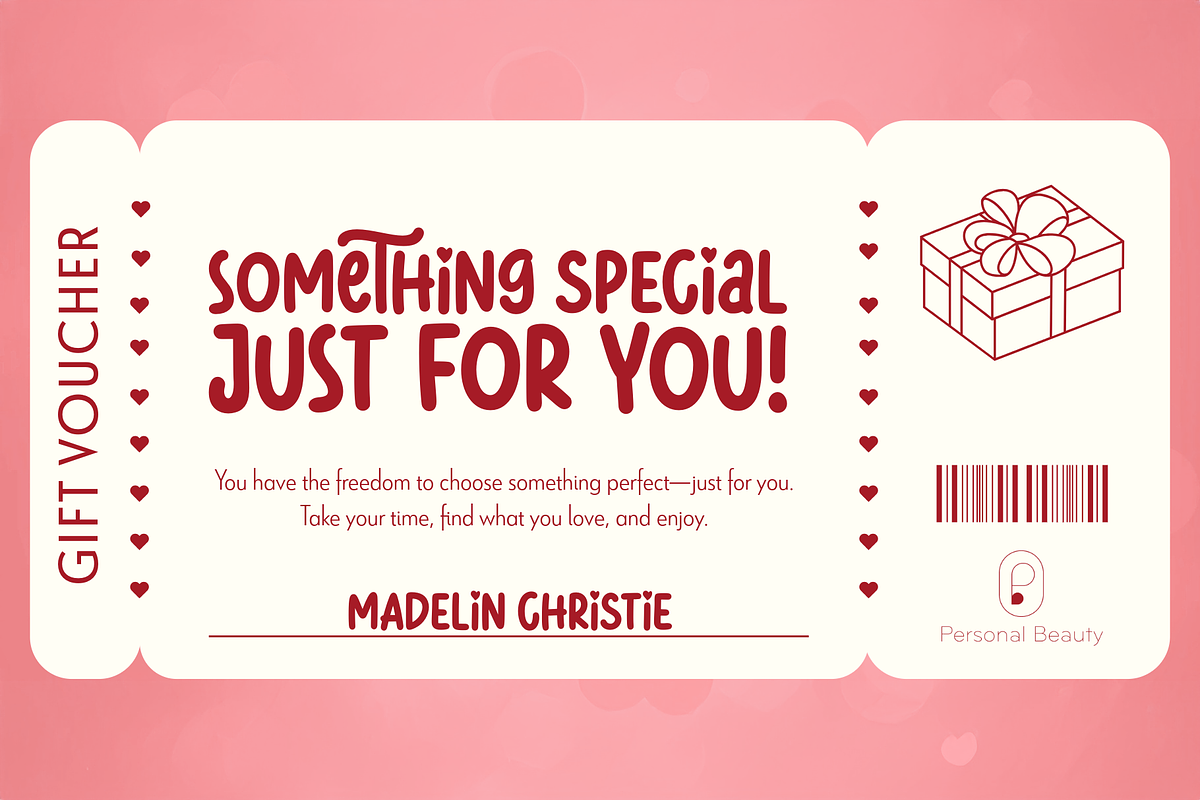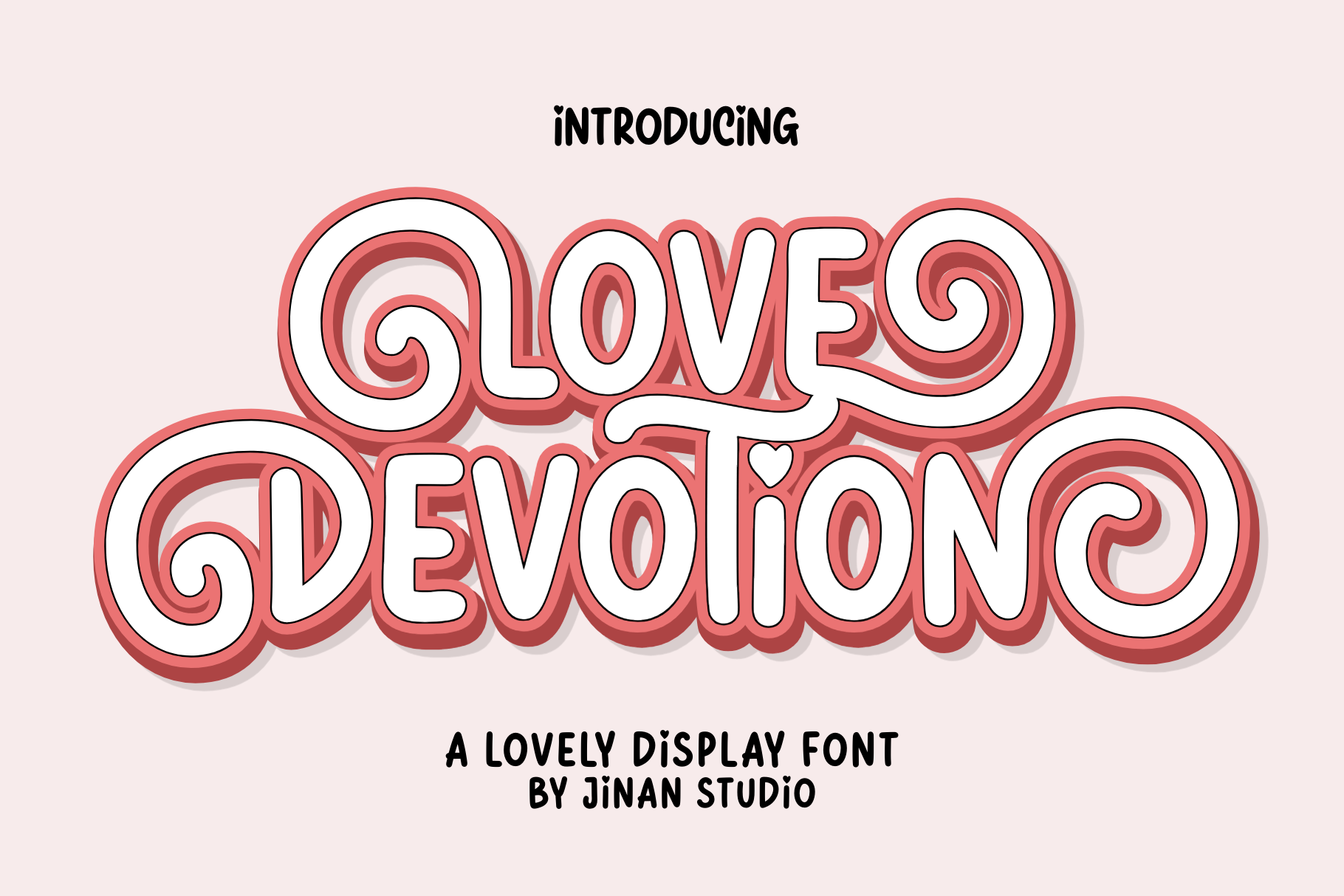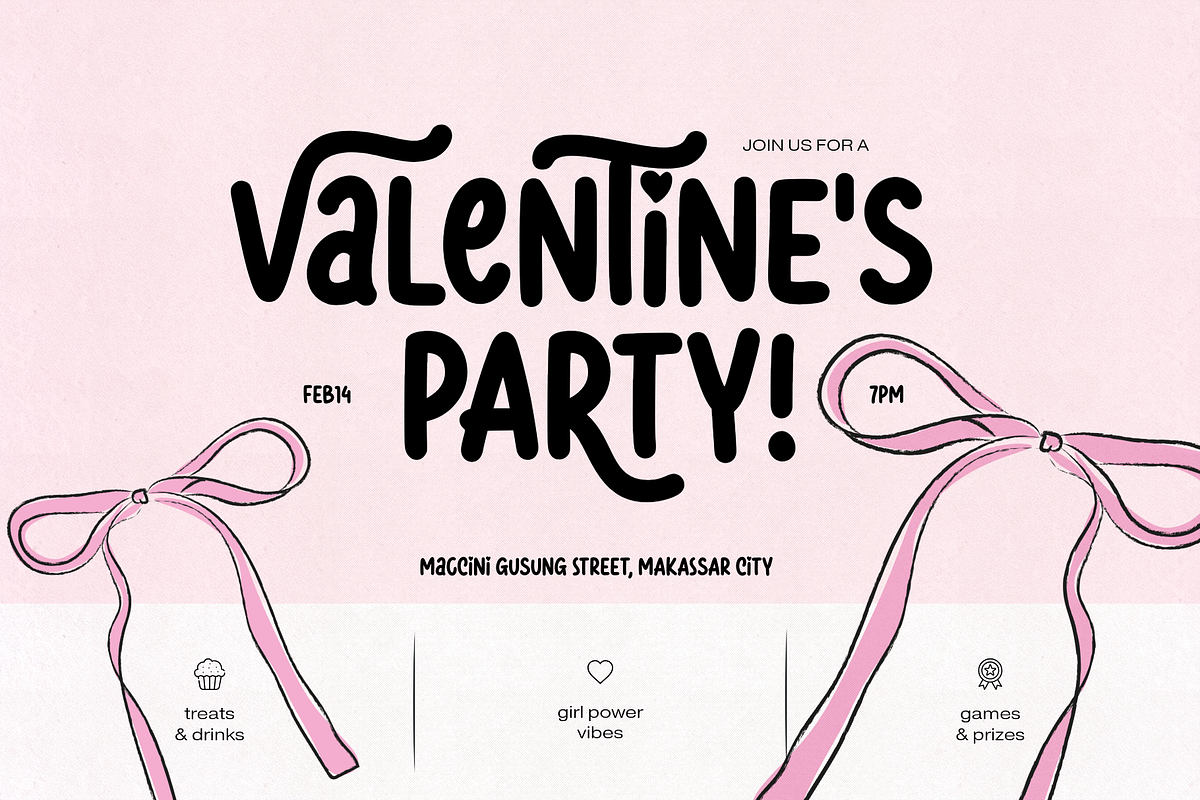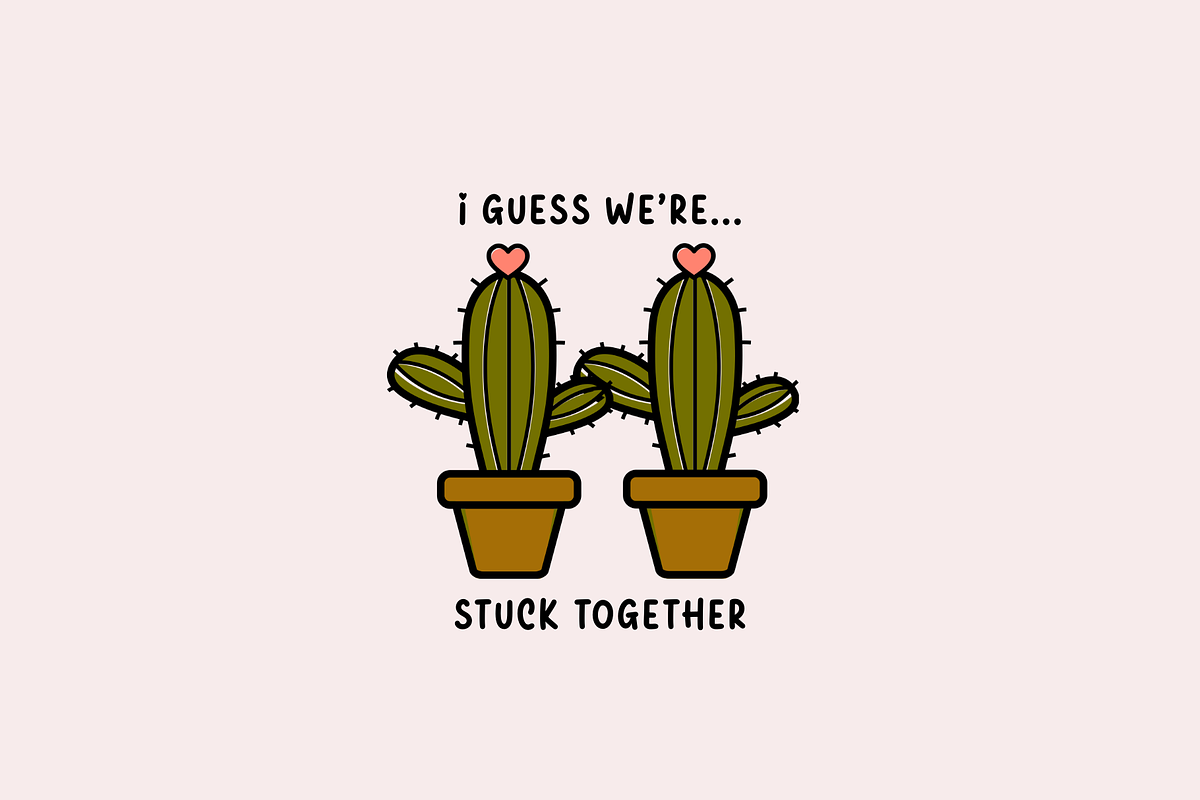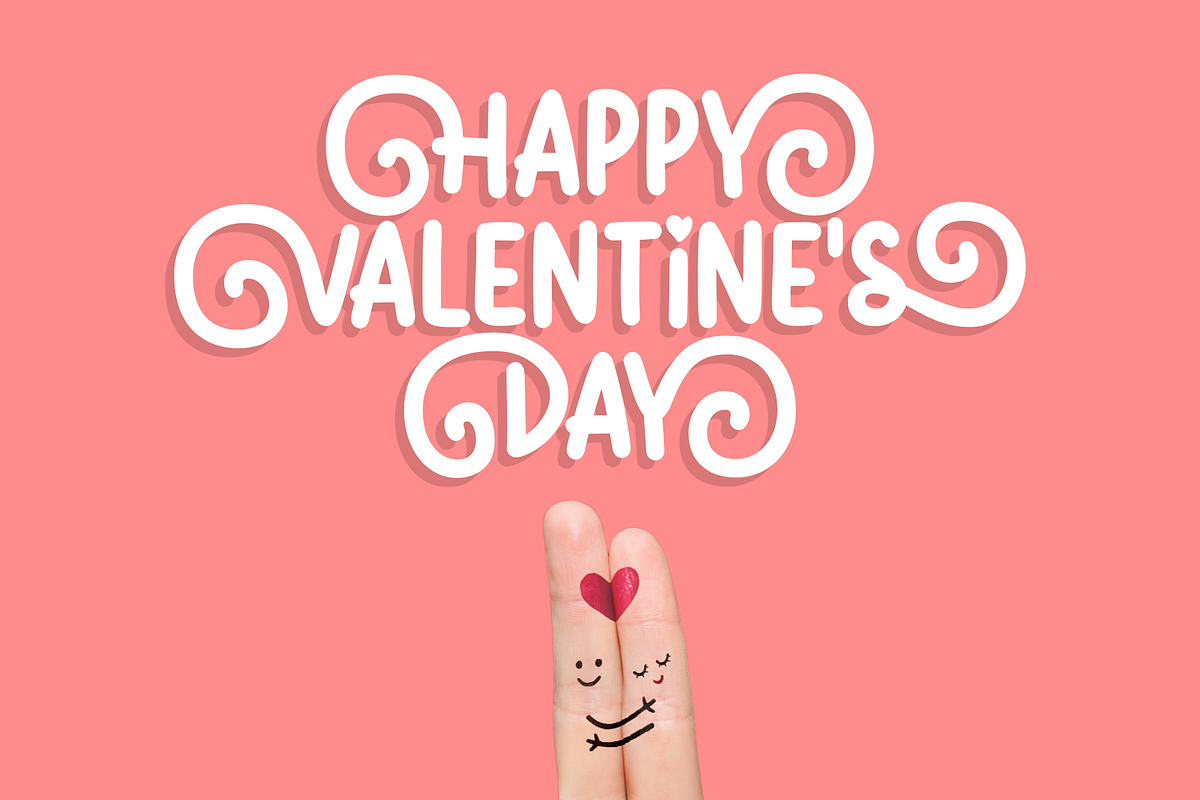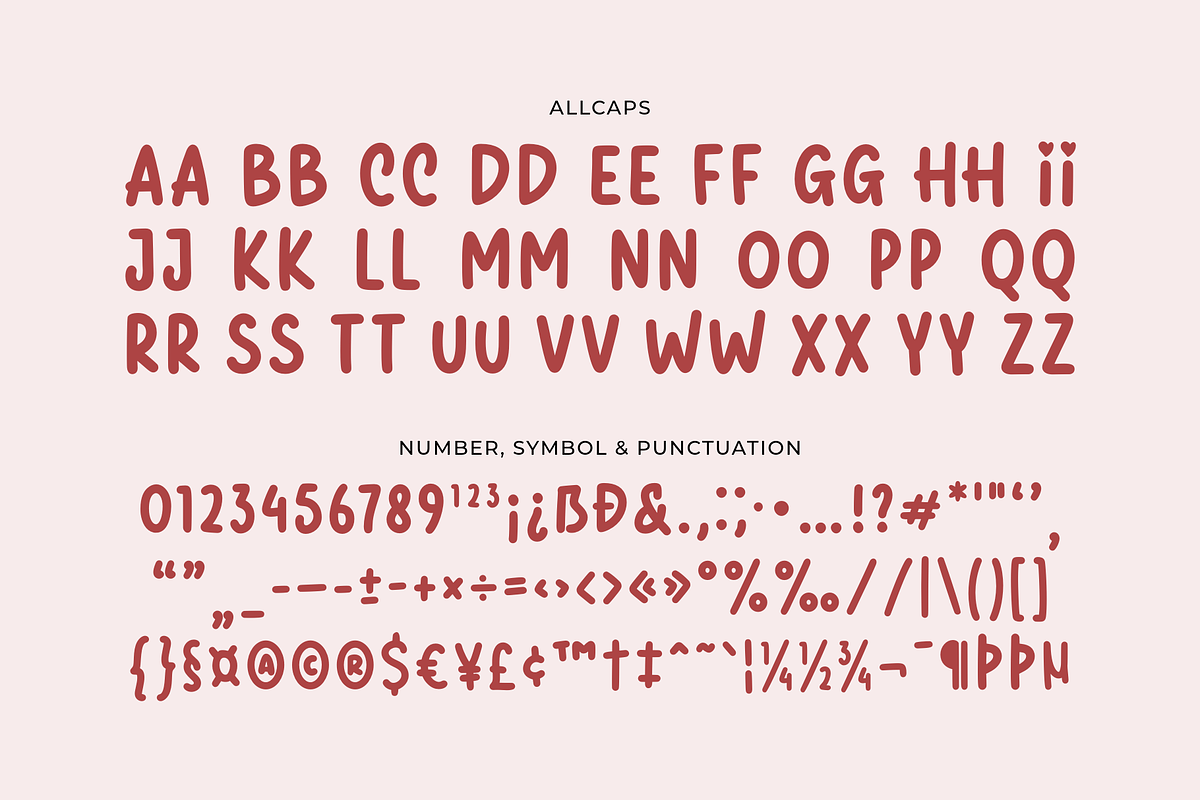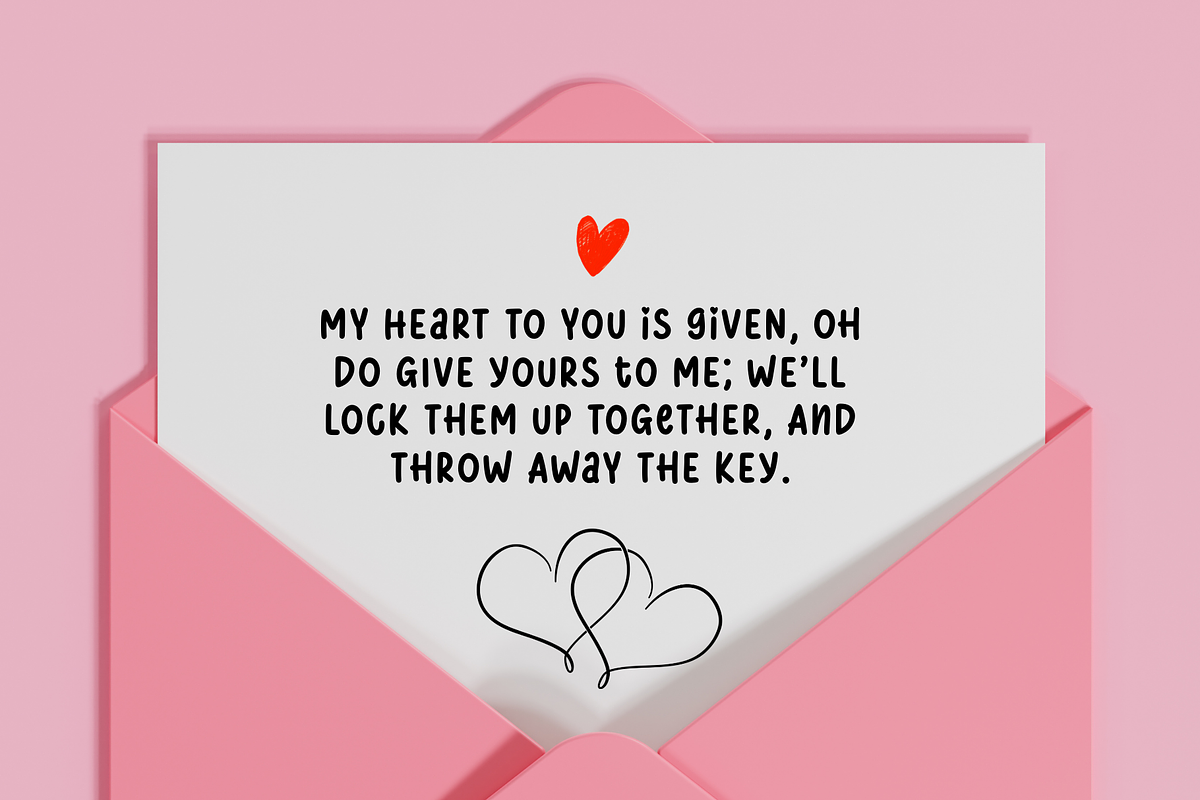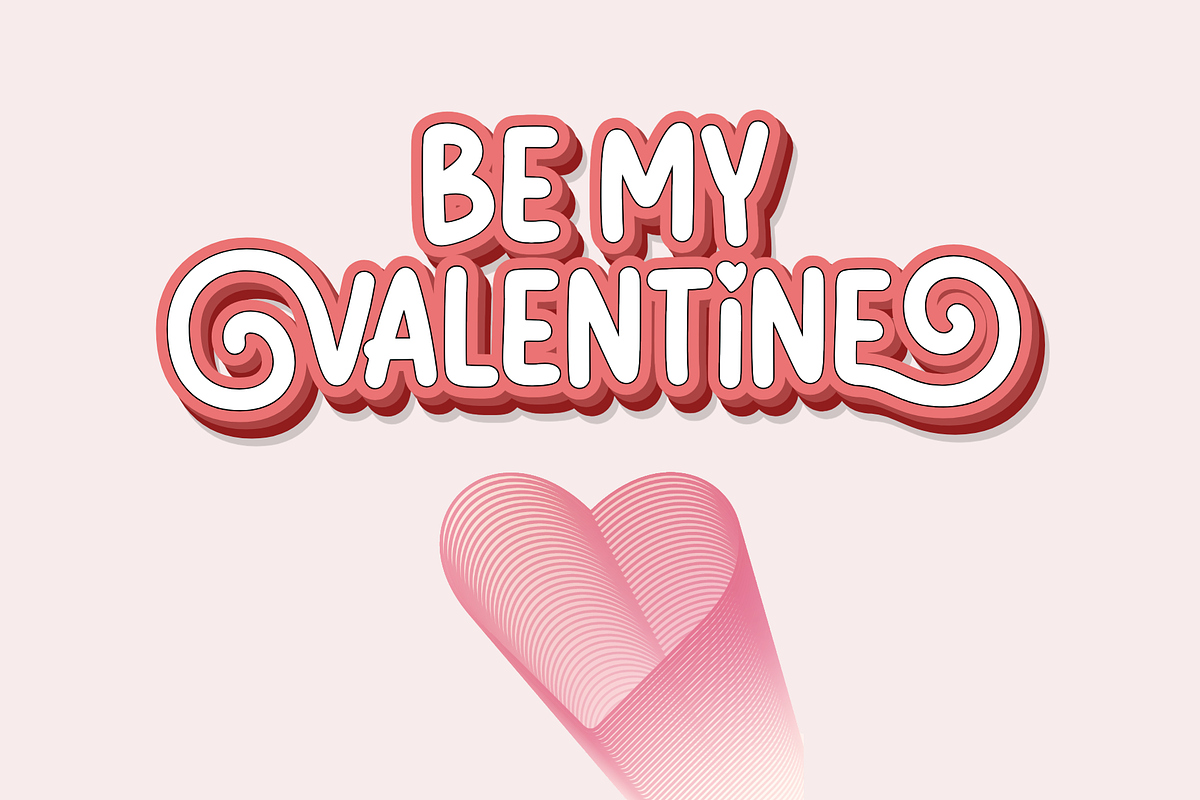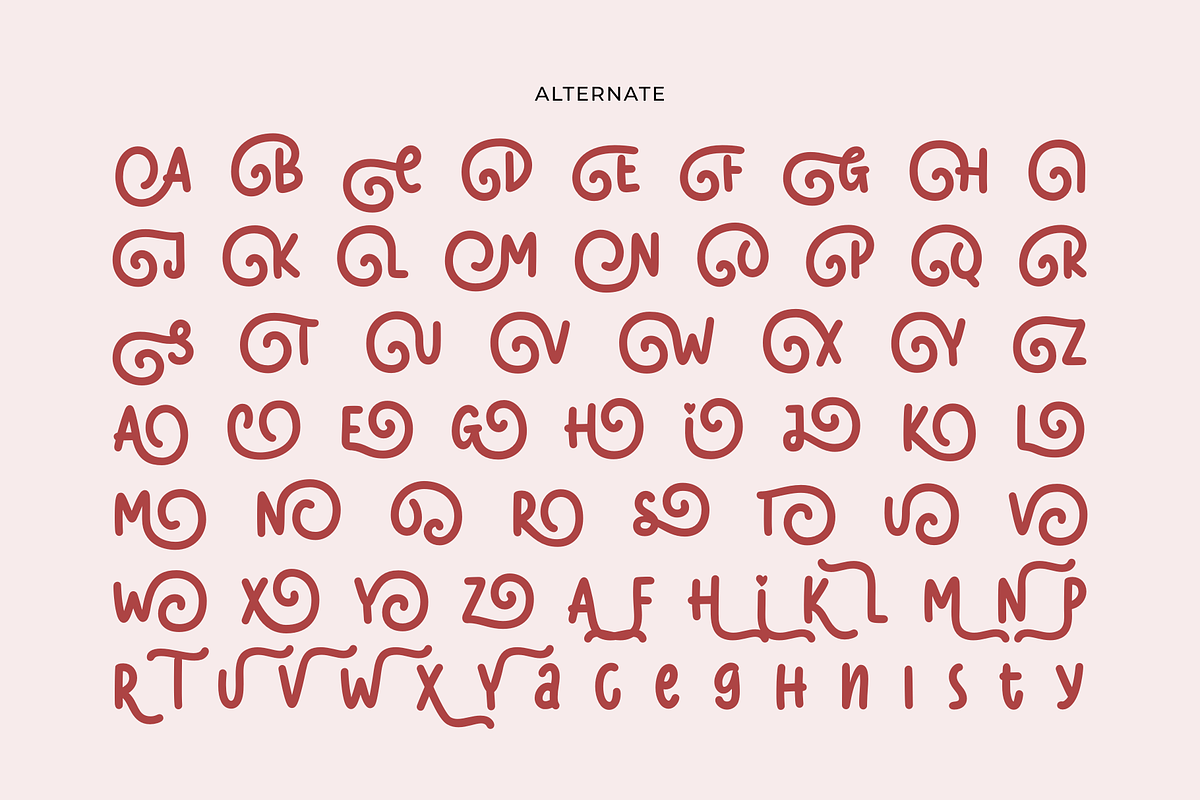
Love Devotion - A Display Font
Love Devotion is a cute and charming Valentine-themed display font with bold shapes and soft curves. It features lovely swirl details and alternate characters to create playful and unique lettering.
Perfect for Valentine’s Day designs, wedding projects, greeting cards, romantic quotes, branding, packaging, and social media. This font is designed to bring a sweet and loving feel to your work.